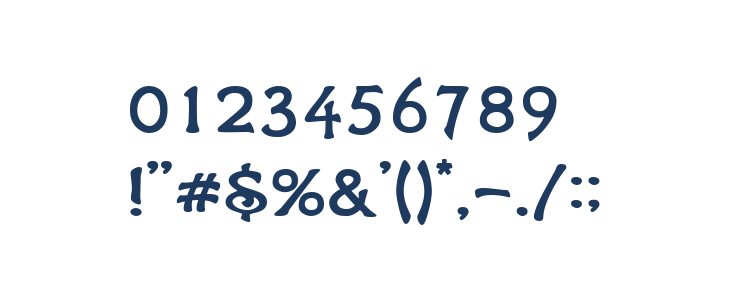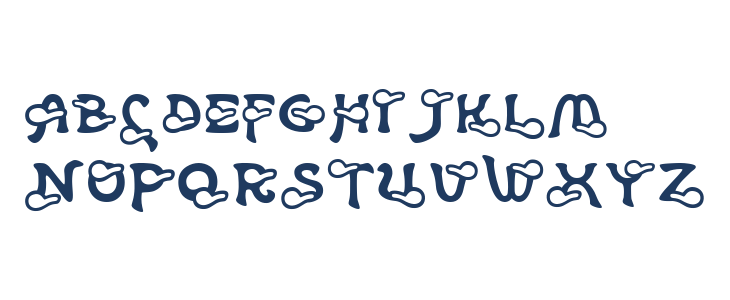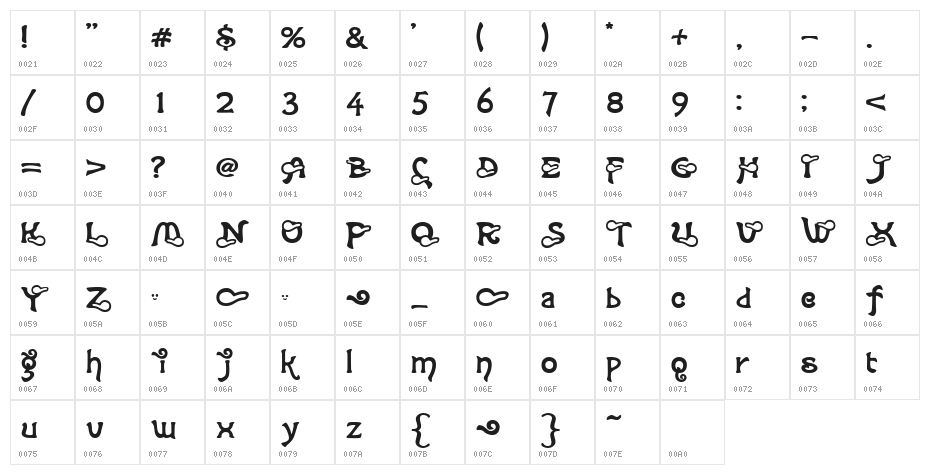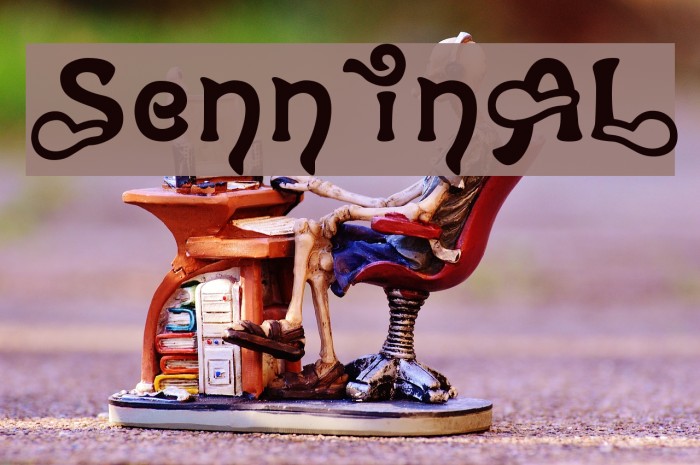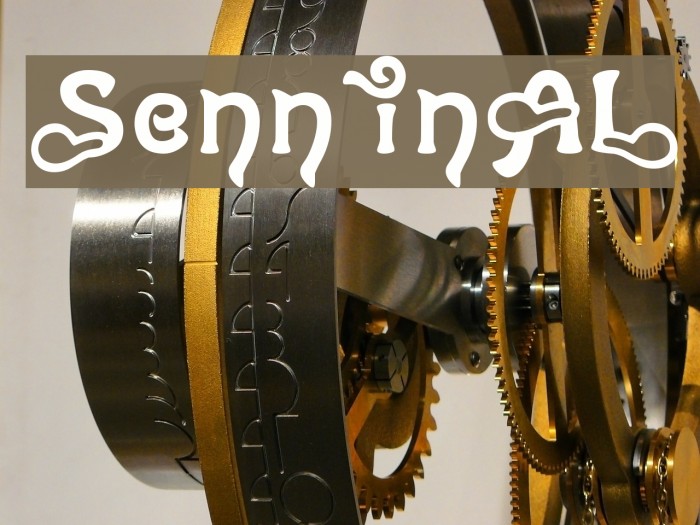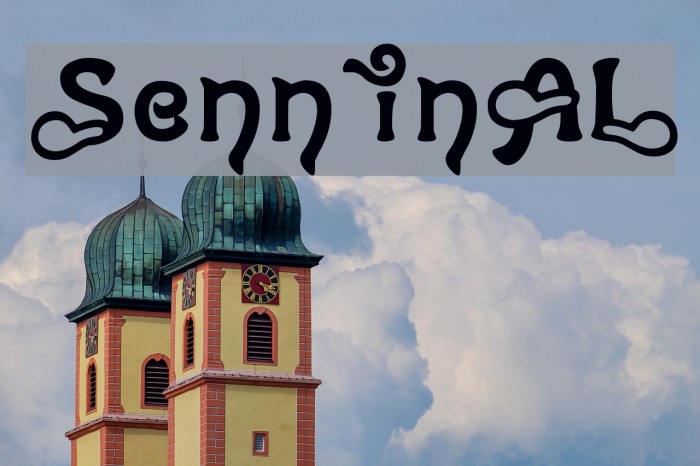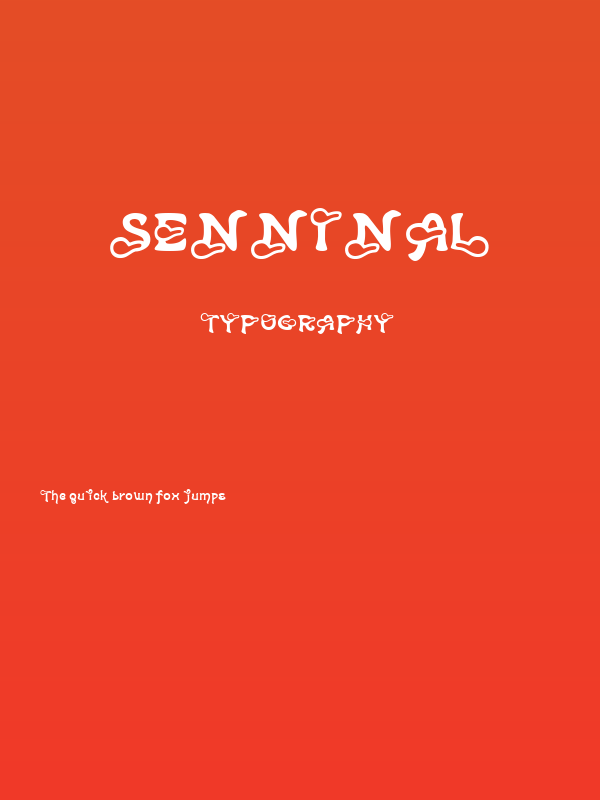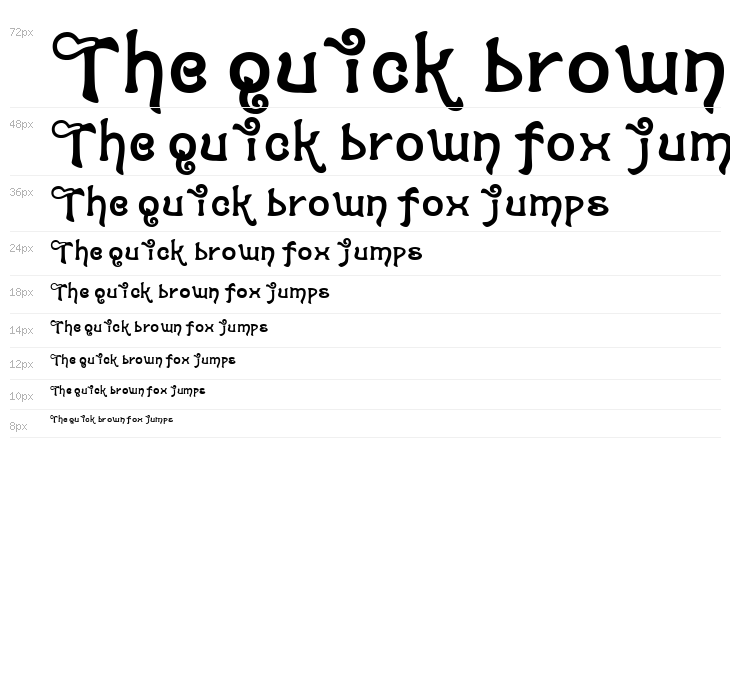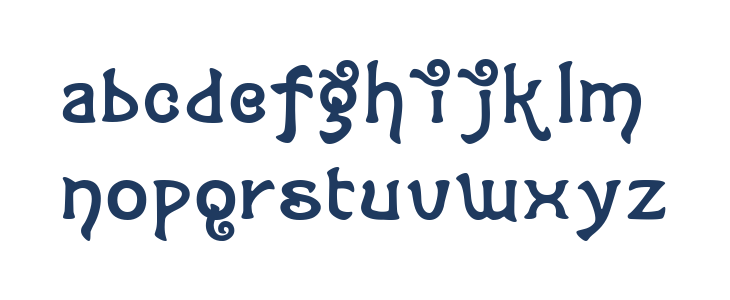
SenninAL Font
SenninAL Description
This font features a whimsical and playful design, characterized by its unique and irregular shapes. The letters have a hand-drawn quality, with varying stroke thicknesses that add to its charm. The uppercase letters are bold and distinctive, while the lowercase letters maintain a consistent style that complements the overall aesthetic. The numbers and special characters follow the same playful theme, making this font ideal for creative and artistic projects. Its decorative nature makes it stand out, yet it remains legible and functional.
| Proposed Projects | Ideal for children's books, creative posters, playful branding, and artistic projects. |